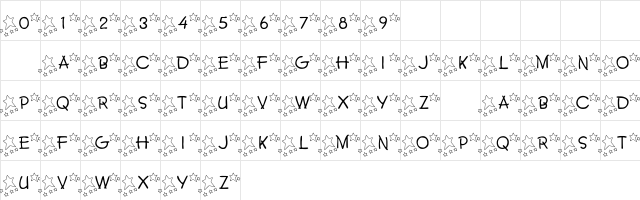
101! Twinkle Lit'l Font Regular
Design Context for 101! Twinkle Lit'l Font Typeface
101! Twinkle Lit'l Font is a composed and adaptable typeface that performs quietly and consistently across a wide range of design contexts.